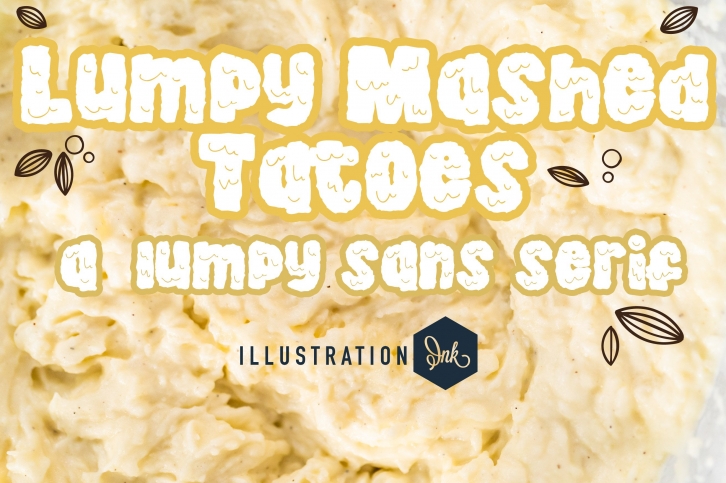
PN Lumpy Mashed Tatoes is a trendy and unique font with an authentic style. It was designed by Illustration Ink and it's a great choice for creative people who need such a font. It was released on November 17, 2022 and the file size is 11.96 MB. PN Lumpy Mashed Tatoes will add an organic vibe to any design idea!